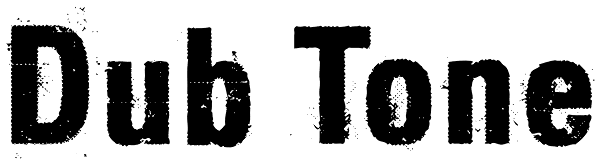
Dub Tone
DubTone is simple sans serif font with a halftone texture from an old newspaper scan on an old flatbed scanner. This font was created for a movie poster in 2003 and then finally converted to a font in 2012. Each of the characters were individually...